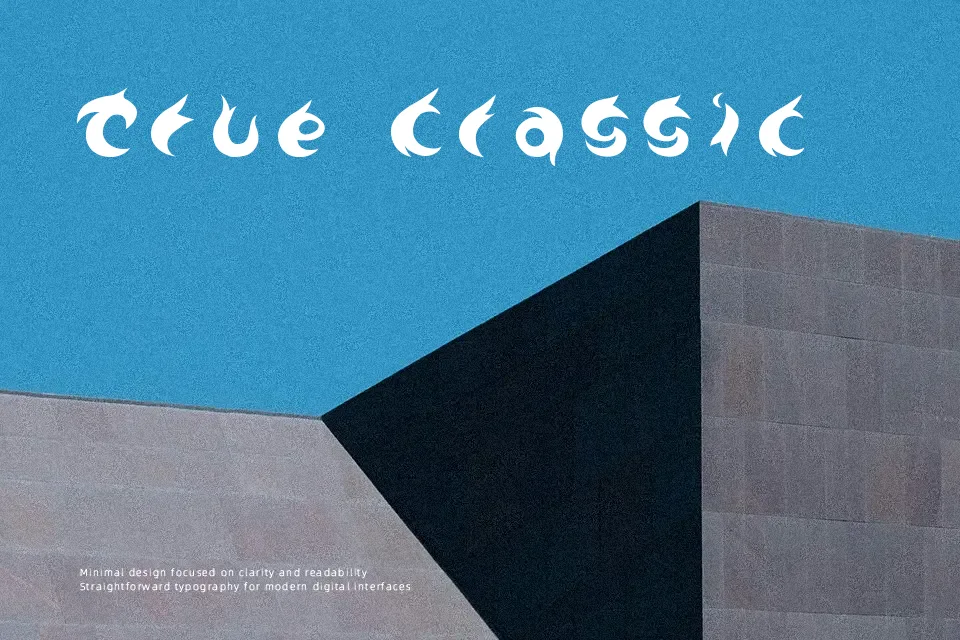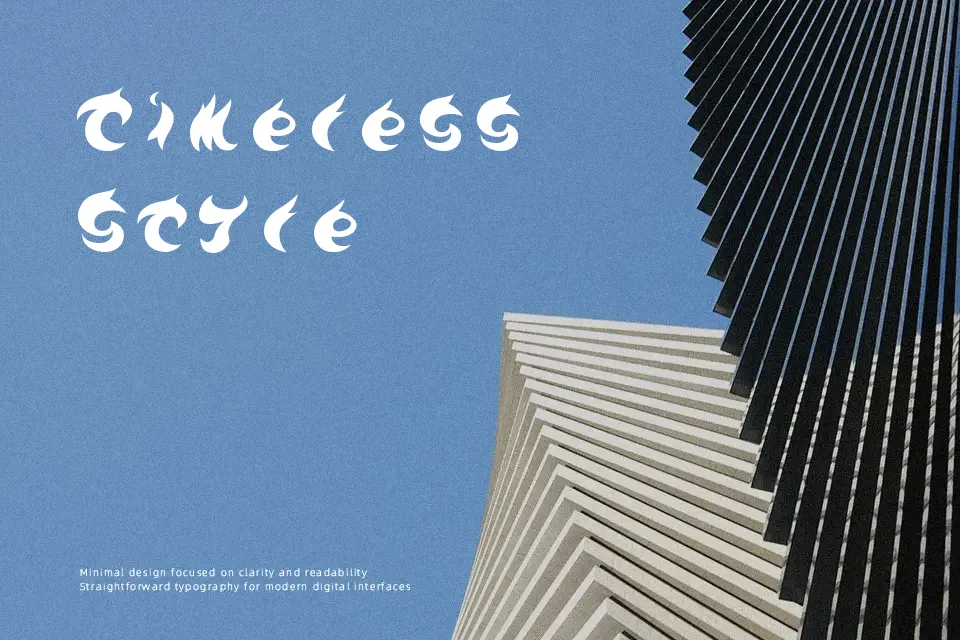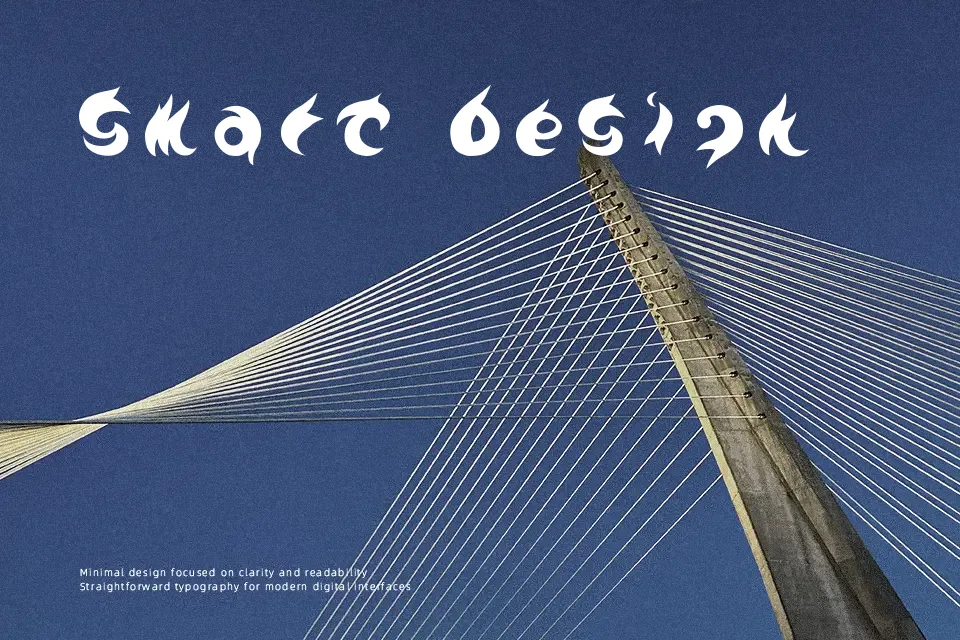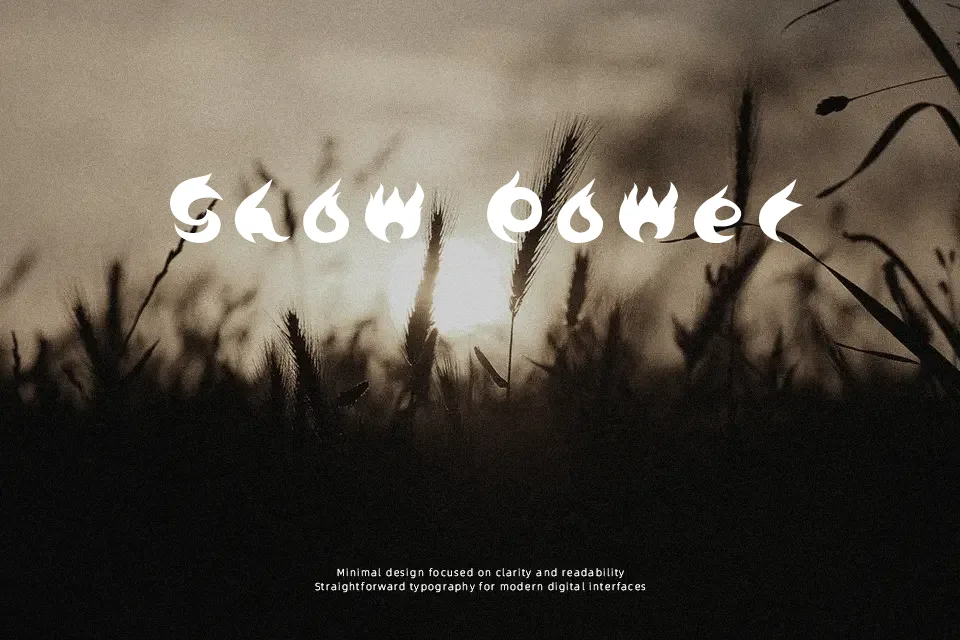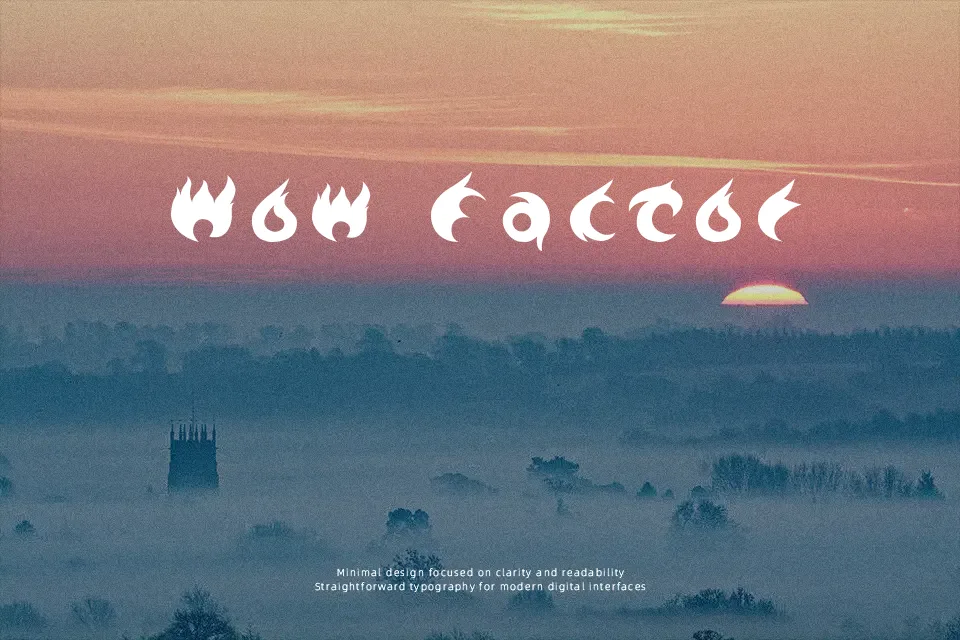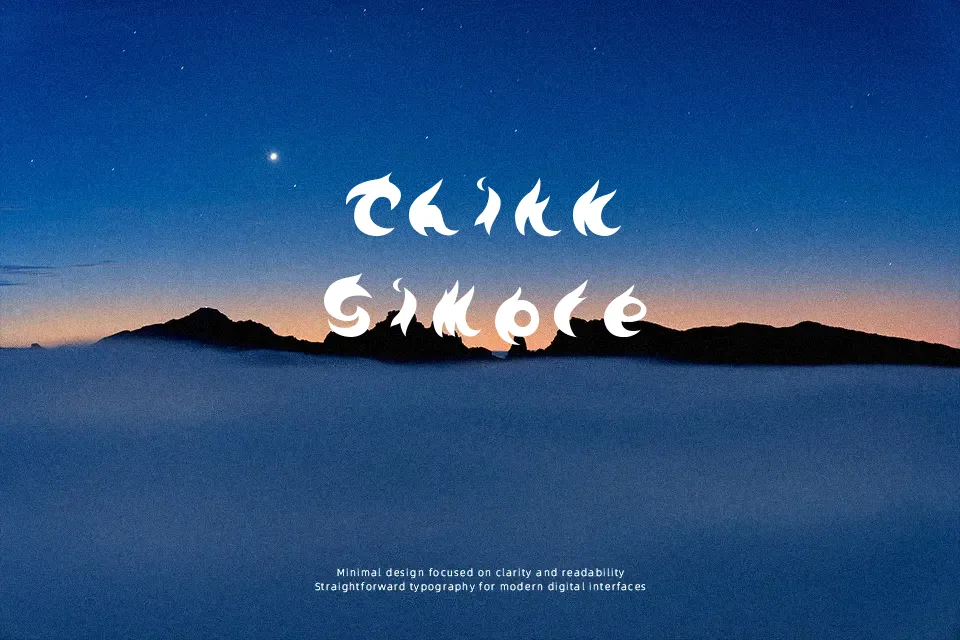
TE-700.2 Font
The TE-700.2 Font establishes a dramatic visual presence through solid, heavy core letterforms surrounded by upward-reaching flame tongues. Its dense silhouette and moderate internal spacing maintain structural cohesion, while the lively flickers introduce organic variation along the perimeter of each glyph. Because the decorative flame details dominate the exterior contours, individual characters remain easily recognizable at prominent headline scales. However, the intricate fiery silhouettes rapidly merge together when reduced, making the typeface far less effective in body text or dense information environments.
Best For: music festival posters, apparel graphics, themed event flyers, video game titles
Not Ideal For: long paragraph text, mobile user interfaces, legal documents, small interface labels
Perfect for branding, gaming, and headline, with a dramatic and decorative style.